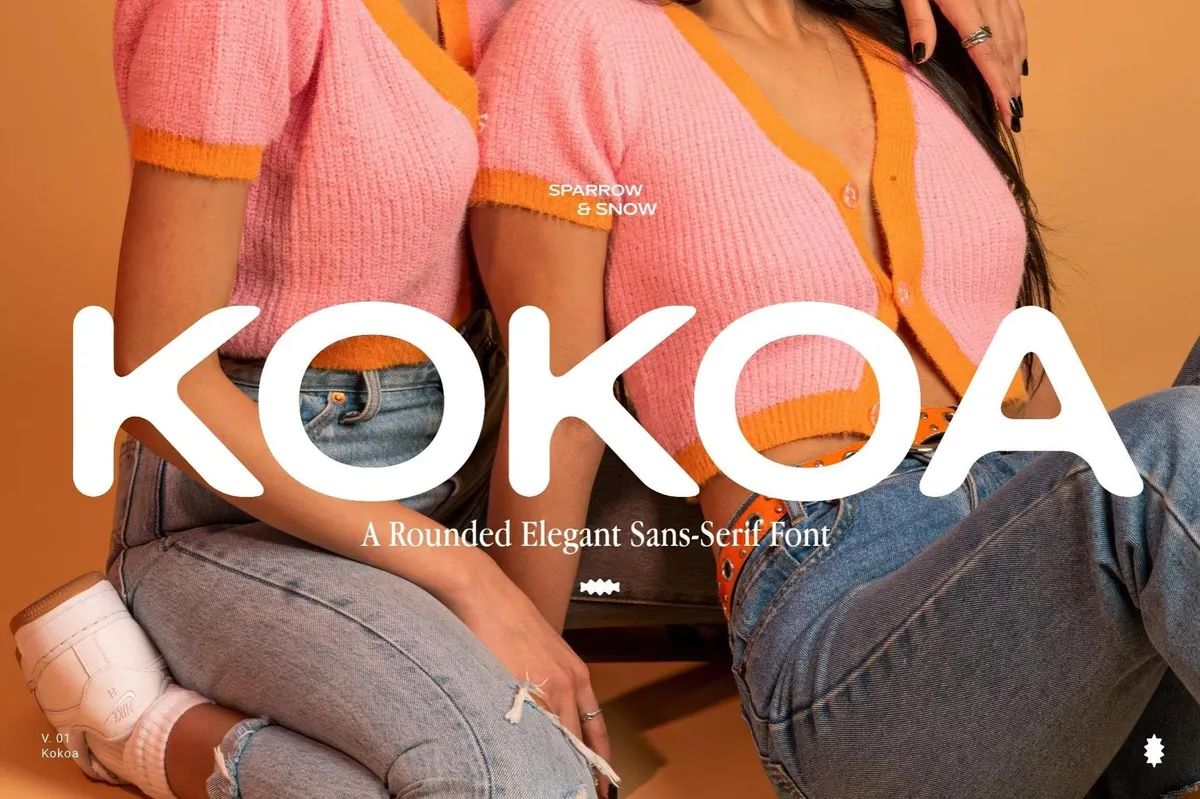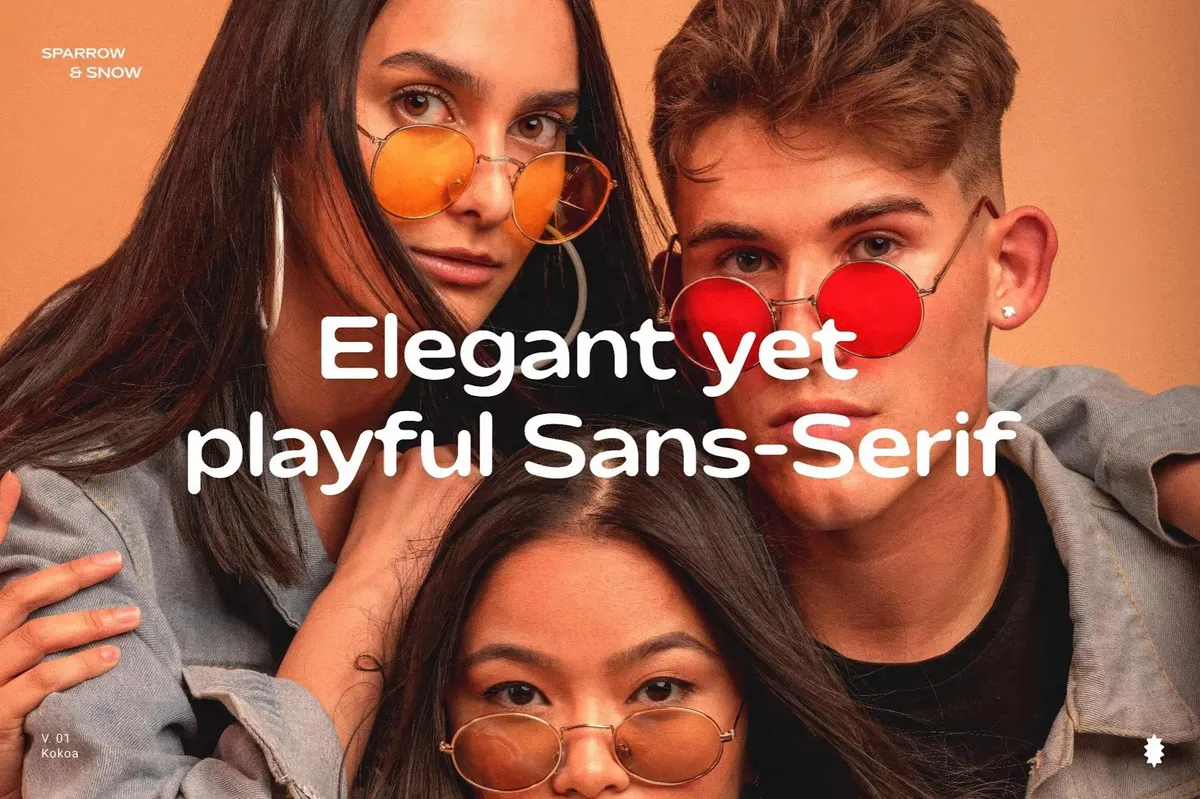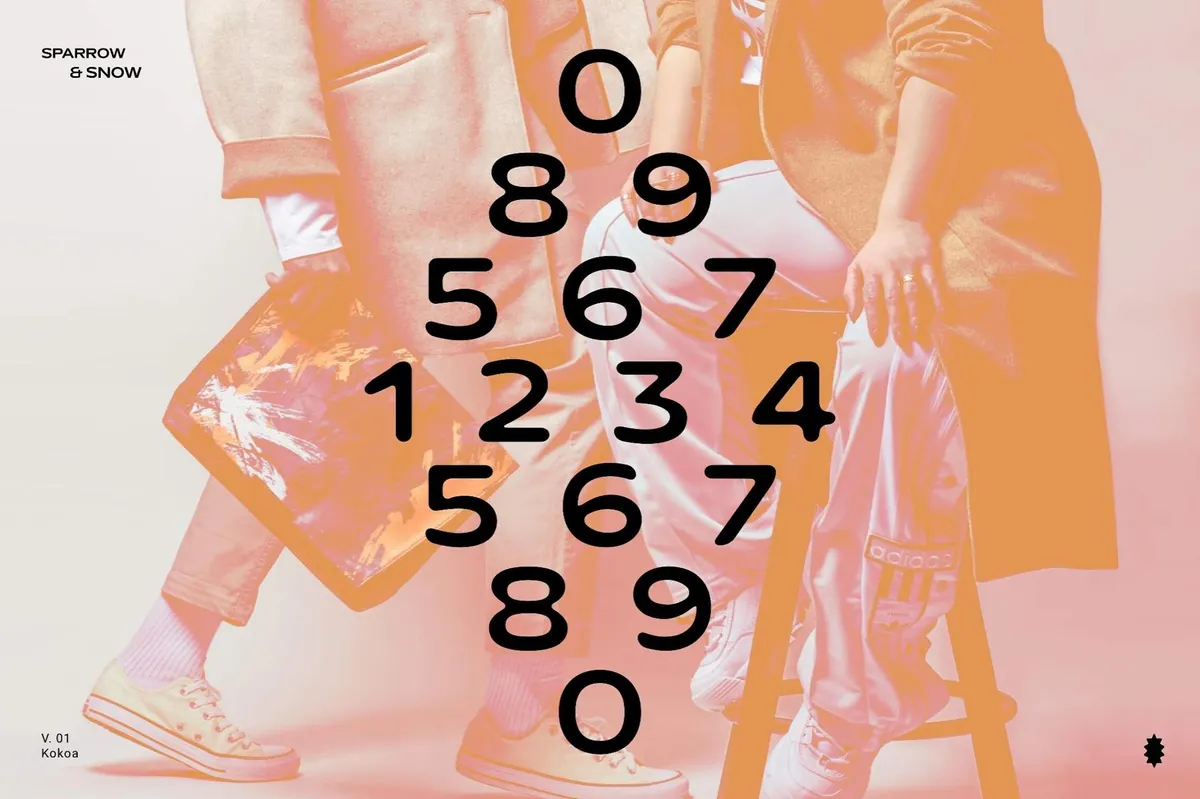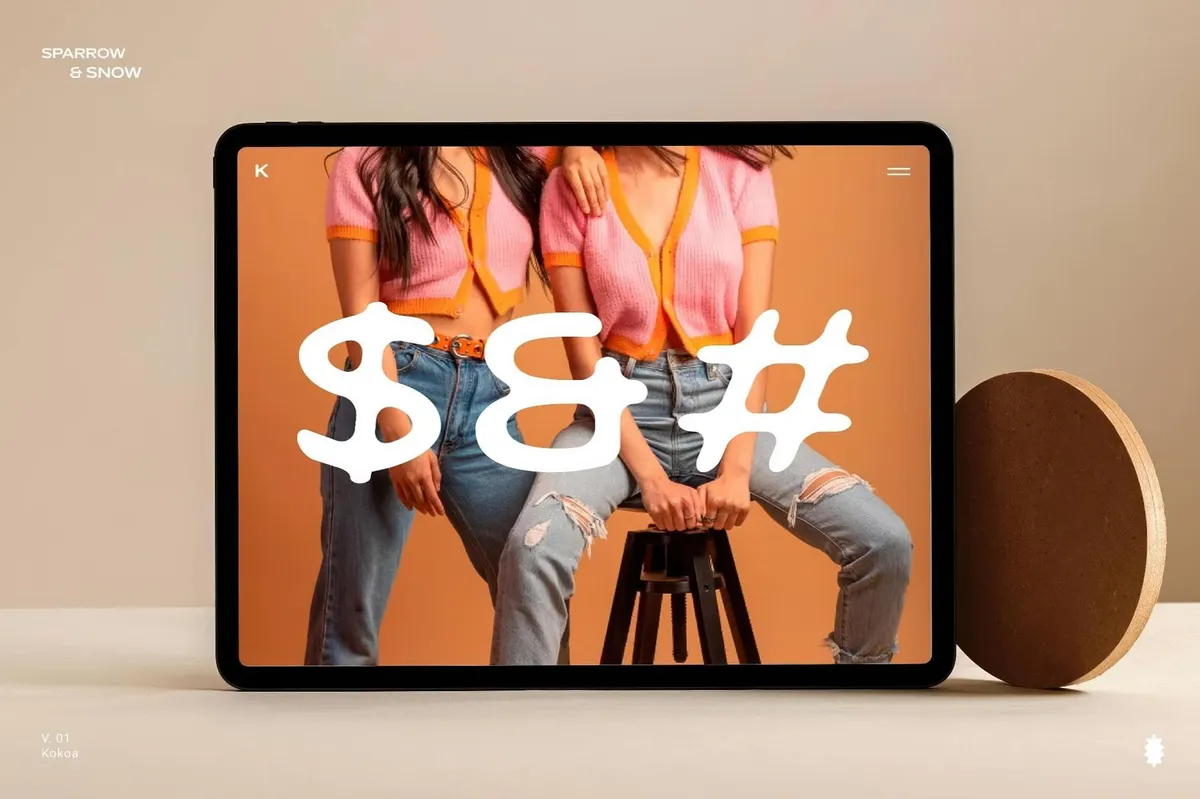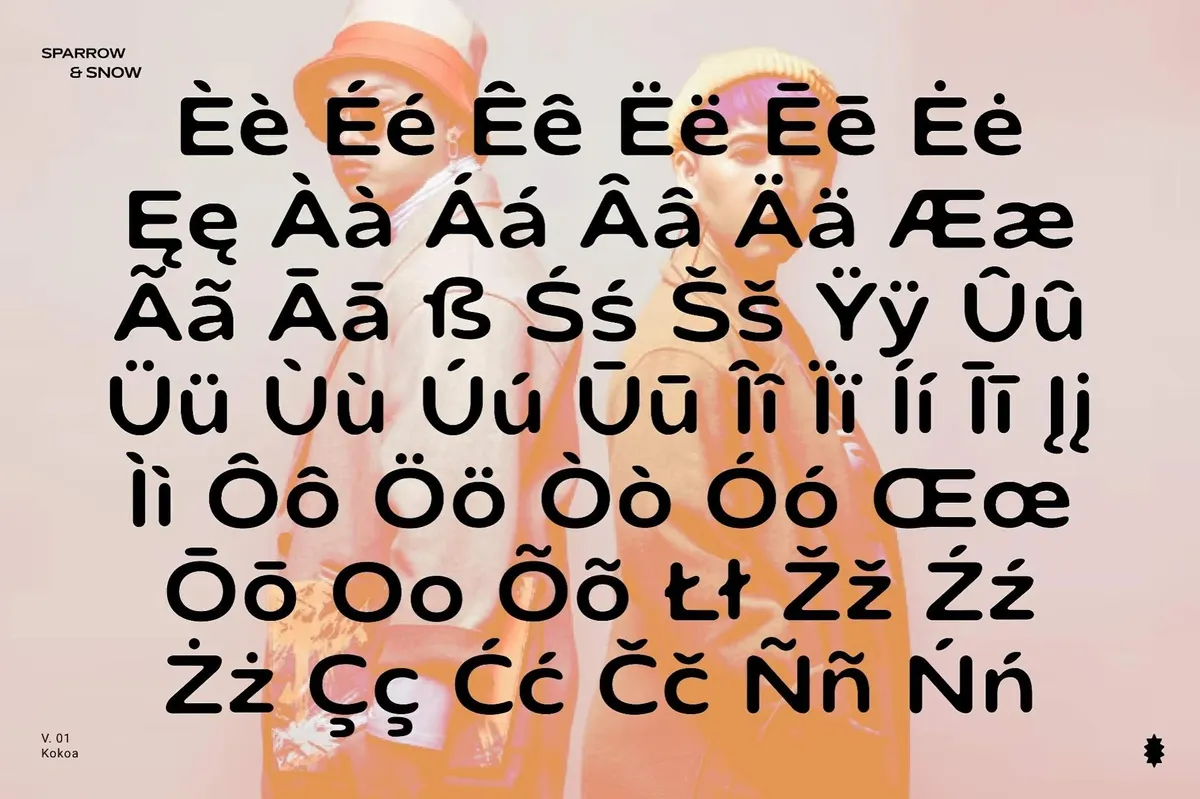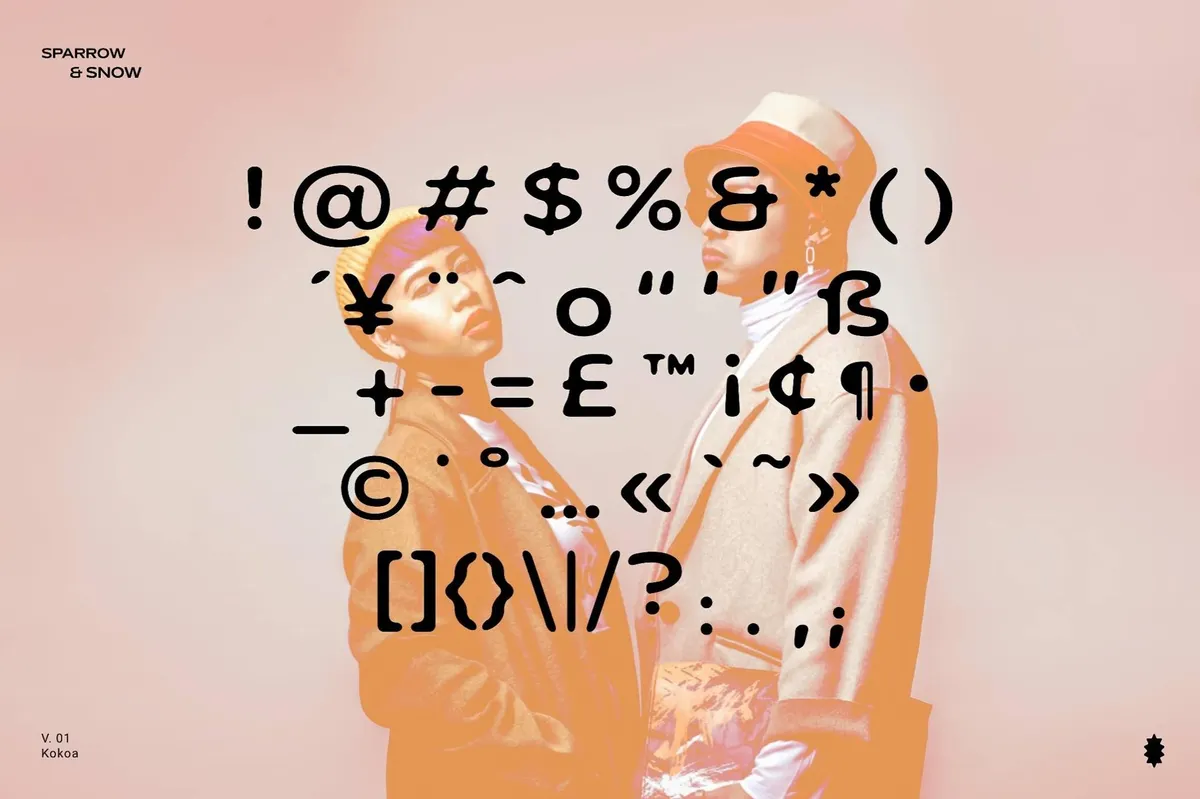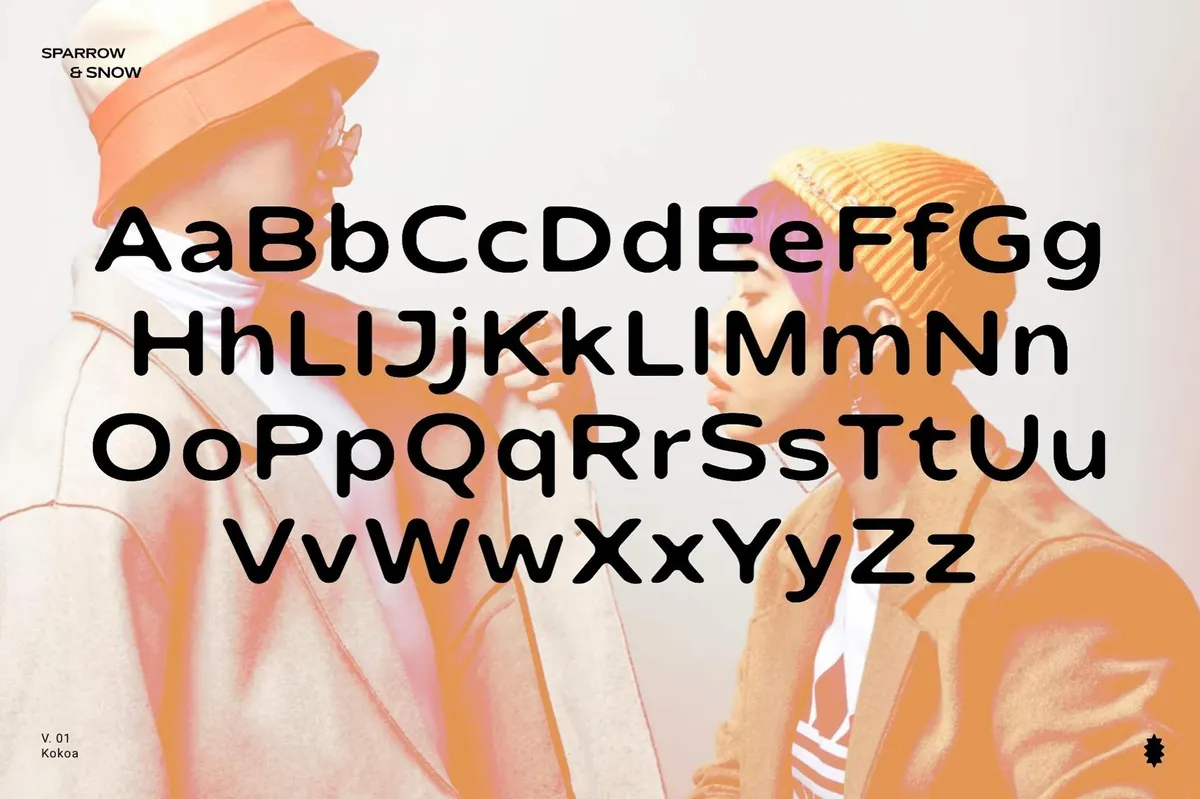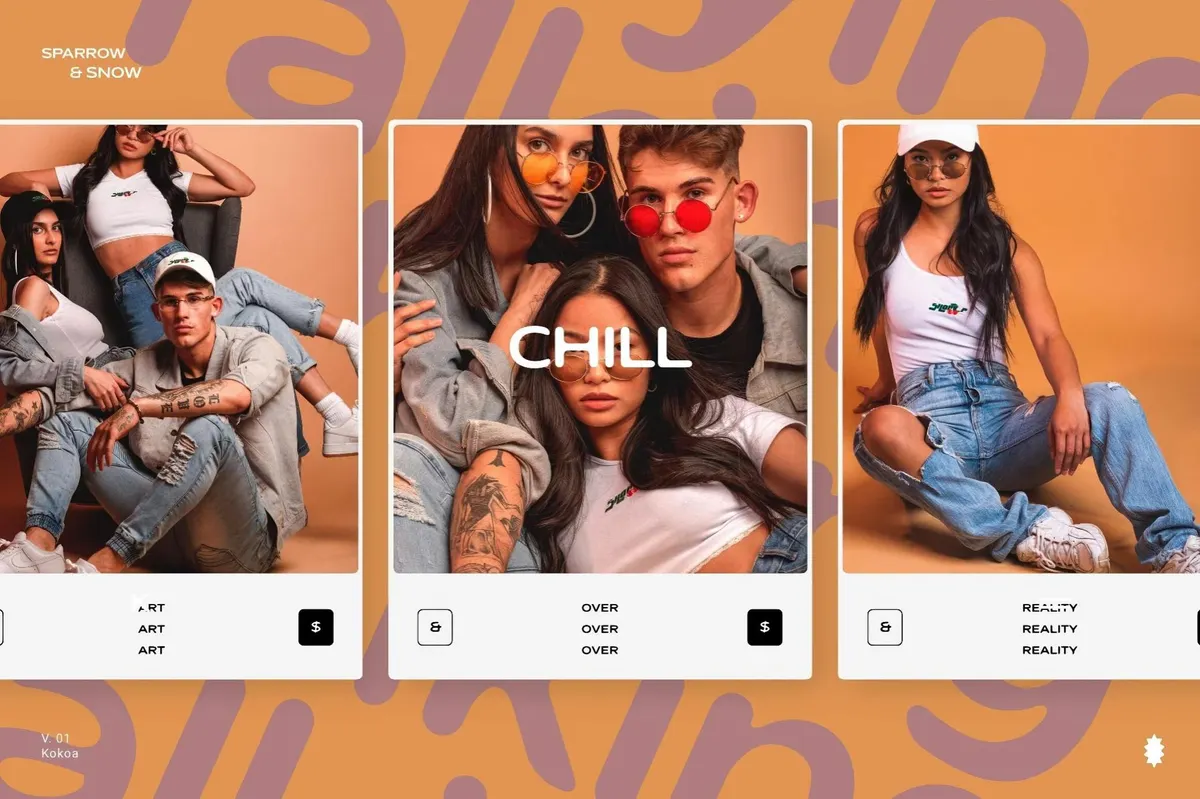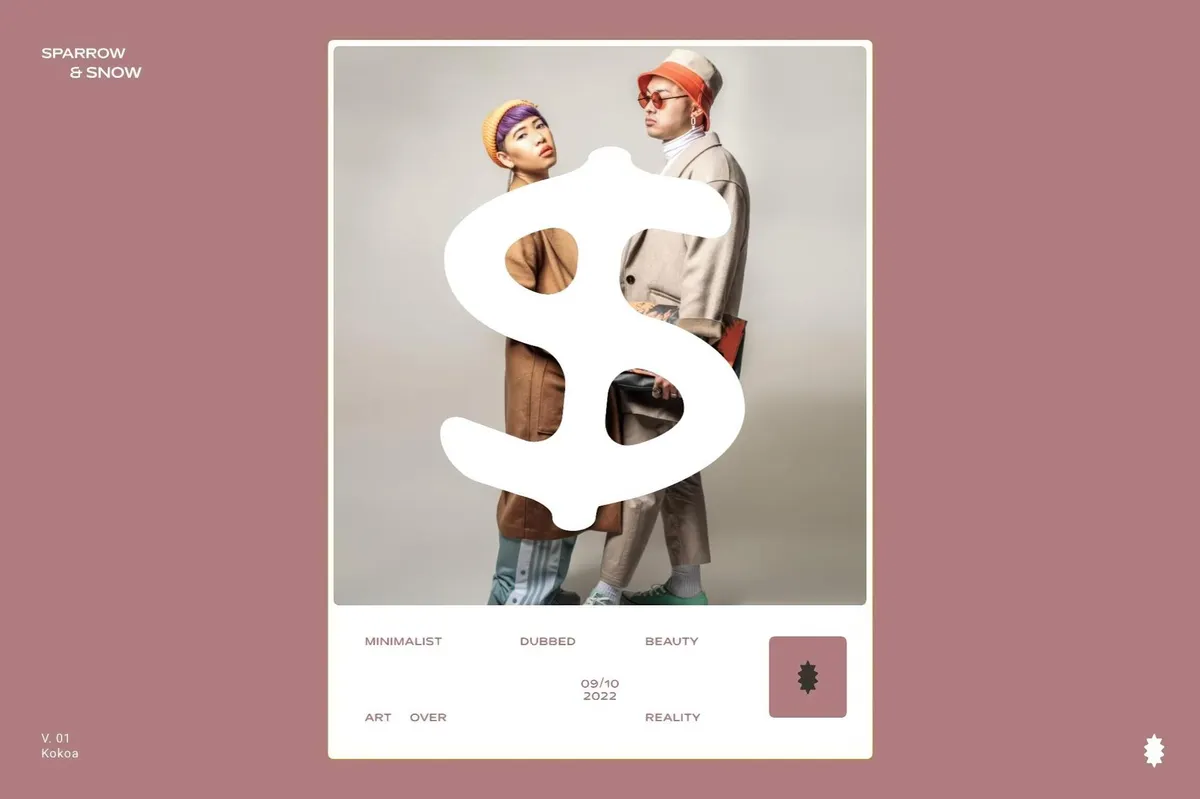
Kokoa Sans Serif Font
Kokoa font appears effortlessly cool with a hint of nostalgia. It blends smooth friendly curves with a confident edge. The rounded forms create a welcoming, stylish feel, making it perfect for branding, packaging, editorial design, and headlines. This font is all about making an entrance — whether you're crafting trendy fashion branding or playful social media visuals, its versatility shines through. Packed with uppercase and lowercase letters, numerals, punctuation, and multilingual support, it’s ready to bring a little fun to any project.